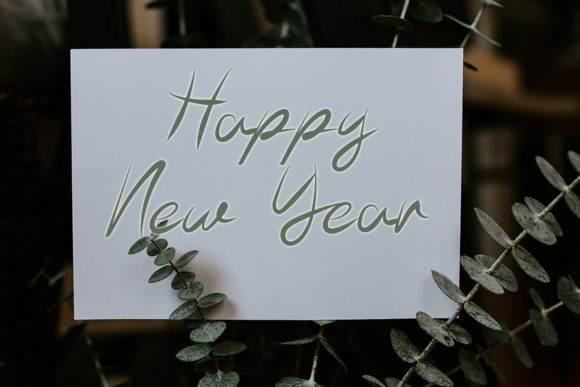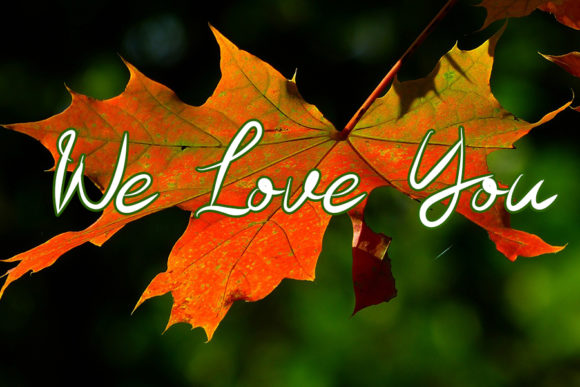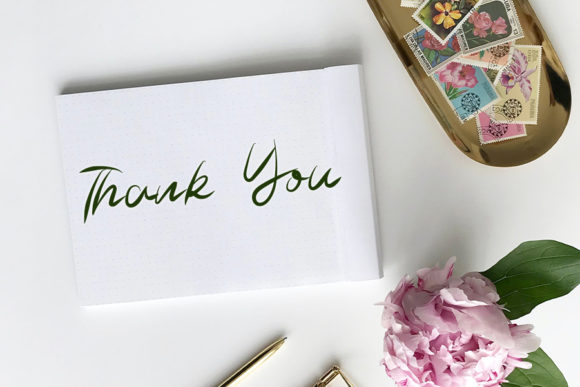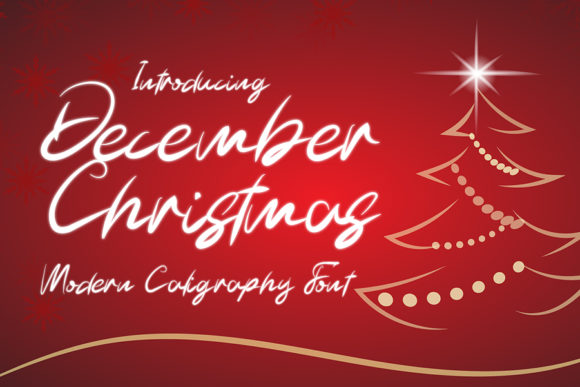
Introducing December Christmas Font: A Sweet and Friendly Handwritten Delight
Are you looking for a font that captures the essence of the holiday season? Do you want to add a personal touch to your designs, crafts, and projects? Look no further than the December Christmas Font, a sweet and friendly handwritten font that’s perfect for a wide range of creative endeavors. In this article, we’ll explore the unique features of this font, its versatility, and how you can use it to make your designs shine.
A Natural and Unique Style
December Christmas Font boasts a natural and unique style that’s reminiscent of handwritten notes and letters. Its organic feel makes it incredibly fitting for designs that require a personal touch, such as holiday cards, invitations, and gift tags. The font’s friendly and approachable demeanor is sure to evoke feelings of warmth and coziness, perfect for the holiday season.
The December Christmas Font is incredibly versatile, making it suitable for a wide range of designs and projects. Whether you’re a designer, crafter, or DIY enthusiast, this font can be used to create:
• Holiday cards and invitations
• Gift tags and wrapping paper
• Blog and website headers
• Paper crafts and scrapbooking projects
• And many more!
The only limit to what you can create with December Christmas Font is your imagination! Its flexibility and charm make it an excellent addition to any design or crafting project.
Key Features of December Christmas Font
Here are some key features that make December Christmas Font a standout:
• Handwritten and natural style
• Unique and distinctive character set
• Perfect for holiday designs and projects
• Suitable for a wide range of creative endeavors
• Easy to read and use
Tips for Using December Christmas Font
To get the most out of December Christmas Font, here are some tips to keep in mind:
• Use it for headlines and titles to add a personal touch
• Pair it with other fonts to create a unique and interesting contrast
• Experiment with different colors and textures to add depth and interest
• Use it for body text to create a warm and inviting feel
In conclusion, December Christmas Font is a sweet and friendly handwritten font that’s perfect for designers, crafters, and DIY enthusiasts. Its natural and unique style makes it incredibly versatile, and its charm and character are sure to add a personal touch to any design or project. Whether you’re creating holiday cards, social media graphics, or paper crafts, December Christmas Font is an excellent choice. So why wait? Get creative and make your designs shine with December Christmas Font!